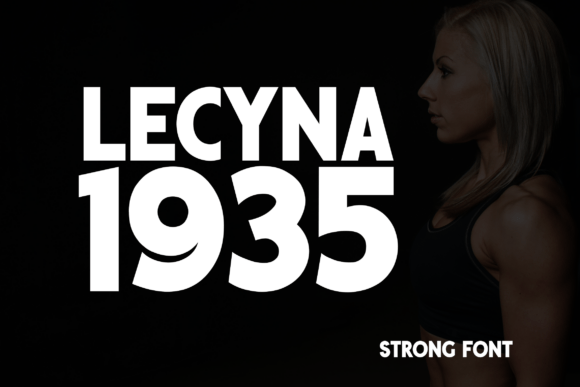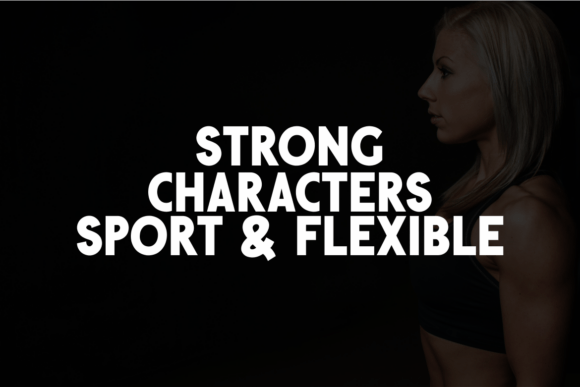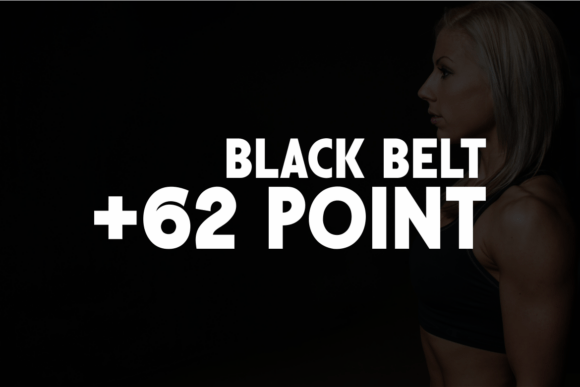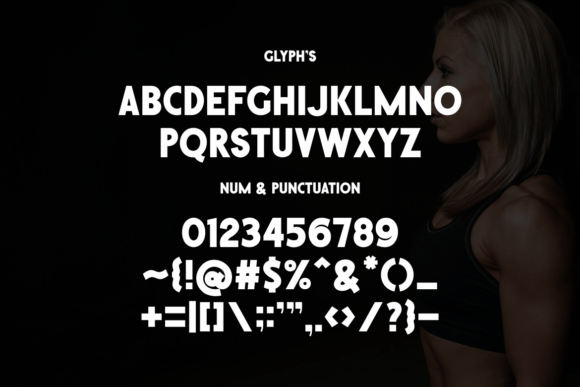
Lecyna 1935 Font
About the Lecyna 1935 Font
Discover the charm of Lecyna 1935 Font. This font is a perfect blend of modern aesthetics and classic appeal. Introducing Lecyna 1935 – a robust font brimming with vigor and dynamism. Ideal for creating an energetic ambiance in sporting domains and gyms, it also thrives in any situation demanding a hard, bold aesthetic. Lecyna 1935 stands out for its commanding style, making it a perfect choice for instances that require an extra dose of sporty energy. Unleash potency, stamina, and resilience with the distinct look and feel of this typeface.
Lecyna 1935 excels in headlines, posters, and logotypes for brands emphasizing strength and power. Its bold forms work well for short, impactful statements, but its condensed nature makes it less suitable for body text or extended reading. Avoid using it in user interfaces or for packaging requiring small text sizes.
The font’s core personality is aggressive and assertive, making it a perfect match for brands in sports, fitness, and automotive industries. Consider pairing it with a clean sans-serif like Open Sans for readability in supporting text or a geometric sans-serif like Futura for a modern, high-contrast look.
For a slightly softer contrast, a neutral serif like Garamond can create a sophisticated balance, tempering Lecyna 1935’s boldness. Avoid pairing it with overly decorative or script fonts, which would clash with its strong, geometric structure.
Lecyna 1935 Font Usage Examples
Lecyna 1935 Font Example